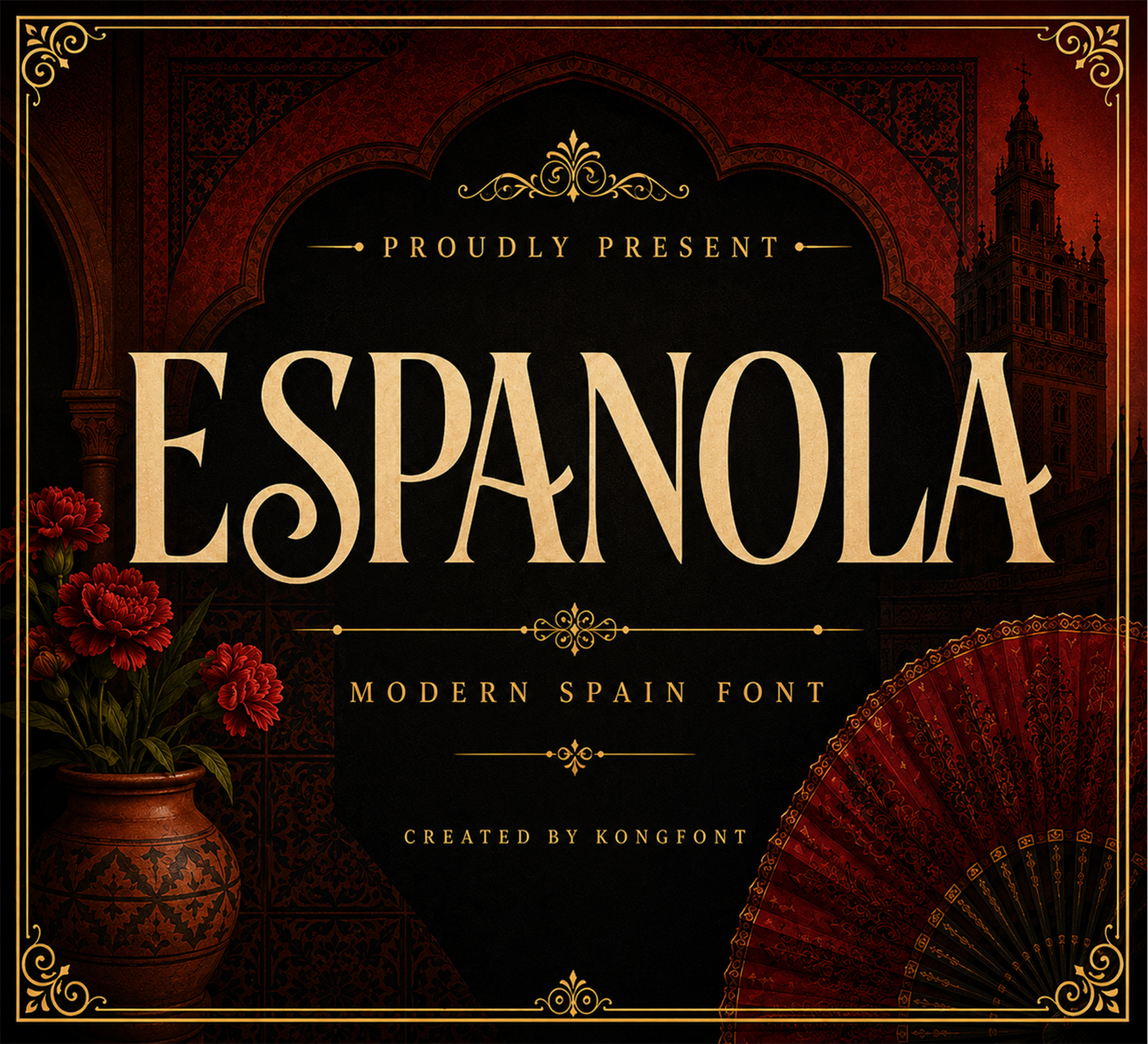
Espanola is an elegant display serif font inspired by Spanish architecture, decorative art, and Mediterranean style. Its tall proportions, graceful curves, and refined serif details create a sophisticated look with a distinctive cultural character.
• Luxury branding
• Restaurant logos
• Wine & food packaging
• Travel posters
• Hotel branding
• Fashion editorials
• Magazines
• Invitations
• Book covers
• Cultural events
• Beauty products
• Social media designs
Compatible with Windows and Mac, Espanola is a great choice for elegant designs that need a classic Spanish feel with a modern touch.